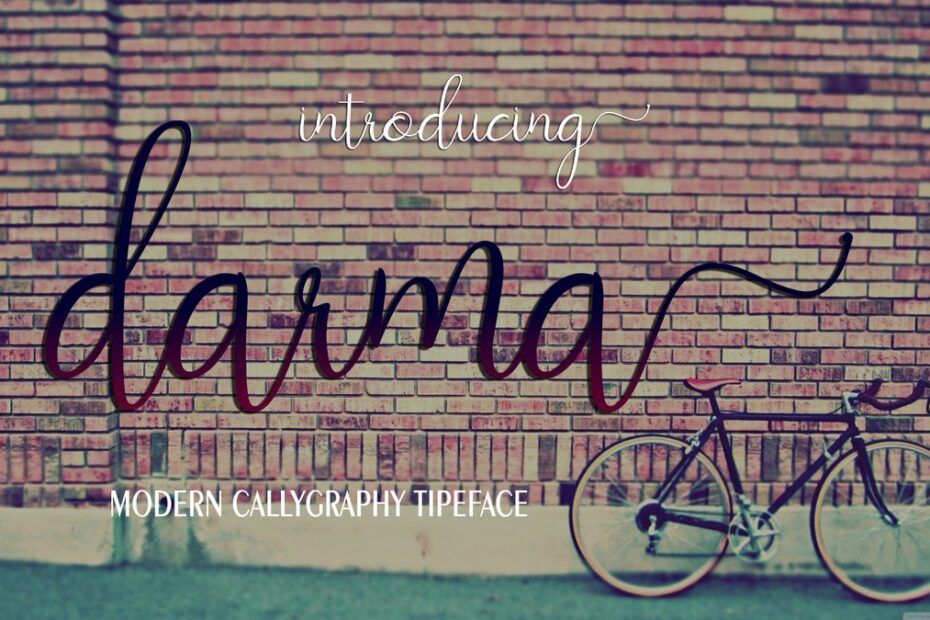
Discover the Art of Handwritten Charm with Darma Font
Have you ever found yourself scribbling down ideas in a notebook, only to later realize that those imperfect, handwritten notes are the most memorable and inspiring? That’s exactly the kind of creative spark that the Darma Font is designed to capture. This beautiful, handwritten font is perfect for adding a touch of personality to your next project.
As a designer, you know that the right font can make all the difference in conveying your message and evoking the right emotions. That’s why the Darma Font is such a valuable tool in your creative arsenal. With its unique, handcrafted feel, it’s sure to add a touch of authenticity and charm to any design project.
Darma Font Key Features
- Unique Characteristics: Darma Font features a unique blend of traditional and modern design elements, resulting in a distinctive and elegant aesthetic that sets it apart from other fonts.
Darma Font Review
Overall, I think Darma Font has some great qualities that make it a decent choice for certain projects. ✨ The font’s clean and modern design is quite appealing, especially for digital applications and websites. The font’s versatility in terms of pairing with different colors and backgrounds is also a plus. ✨
However, I do have some reservations about the font’s limitations. ⚠️ For one, the font family is relatively small, with only a few weights and styles available. This might limit the font’s use in certain situations, such as when a more extensive range of styles is required. ⚠️ Additionally, the font’s legibility could be improved, particularly at smaller font sizes. This might be a concern for projects that require a high level of text readability.
- Clean and modern design
- Versatile pairing with different colors and backgrounds
- Relatively small font family (limited weights and styles)
- Potential issues with legibility at smaller font sizes
Overall, I would say that Darma Font is a decent choice for projects that require a modern and clean look. However, it may not be the best option for projects that require a high level of customization or text readability.
The Darma font is ideal for creating elegant and sophisticated designs, making it perfect for:
- High-end marketing materials.
For optimal results, use the Darma font in conjunction with high-quality images and a clean design aesthetic.